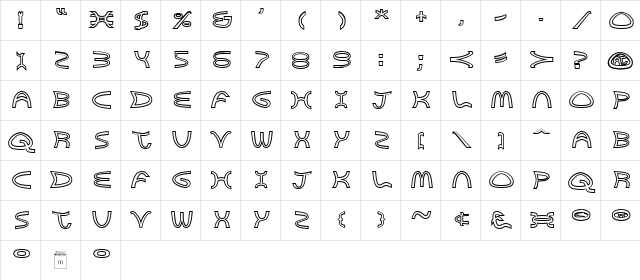
Golden Arches Outline Regular
Design Context for Golden Arches Outline Typeface
Golden Arches Outline brings ornamental detail and strong personality to headlines and identities, where visual impact matters more than quiet functionality.
Font Pairing: Pair with a clean neutral sans-serif for body copy to let Golden Arches Outline's character lead without overwhelming the composition.
Pro Tip: Use Golden Arches Outline exclusively at display sizes — it was designed to be seen, not read at length. Let a neutral companion handle body copy.